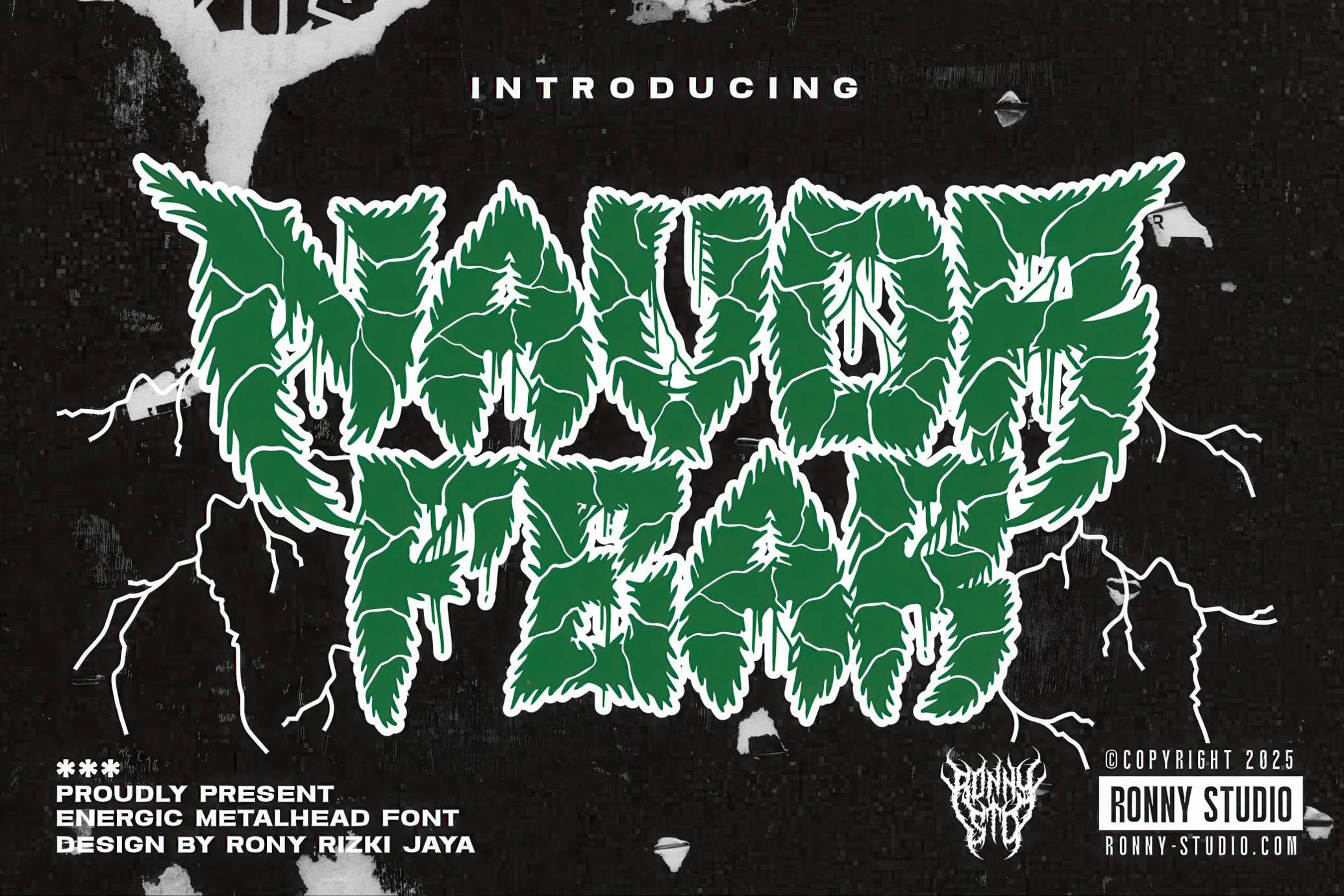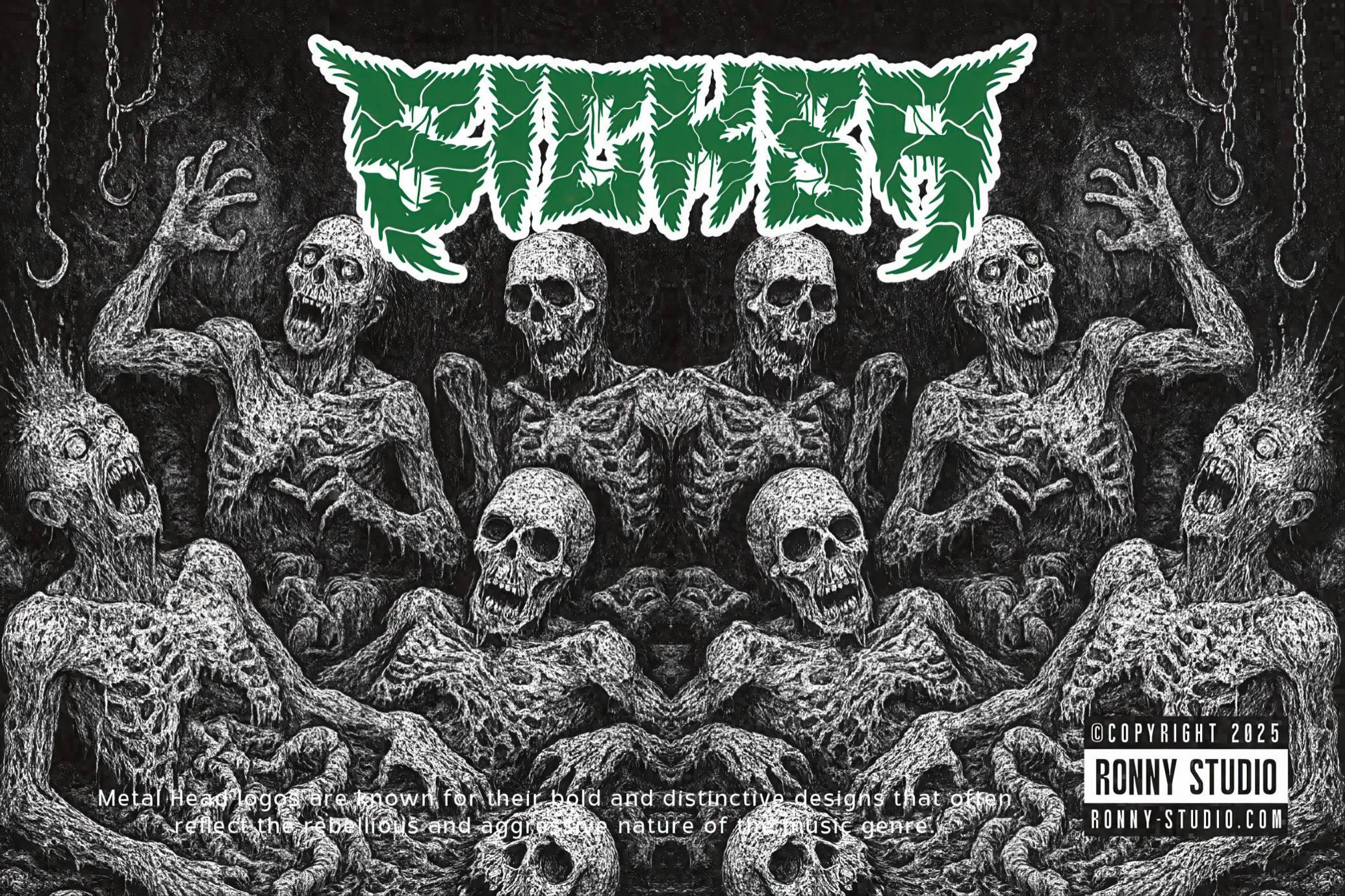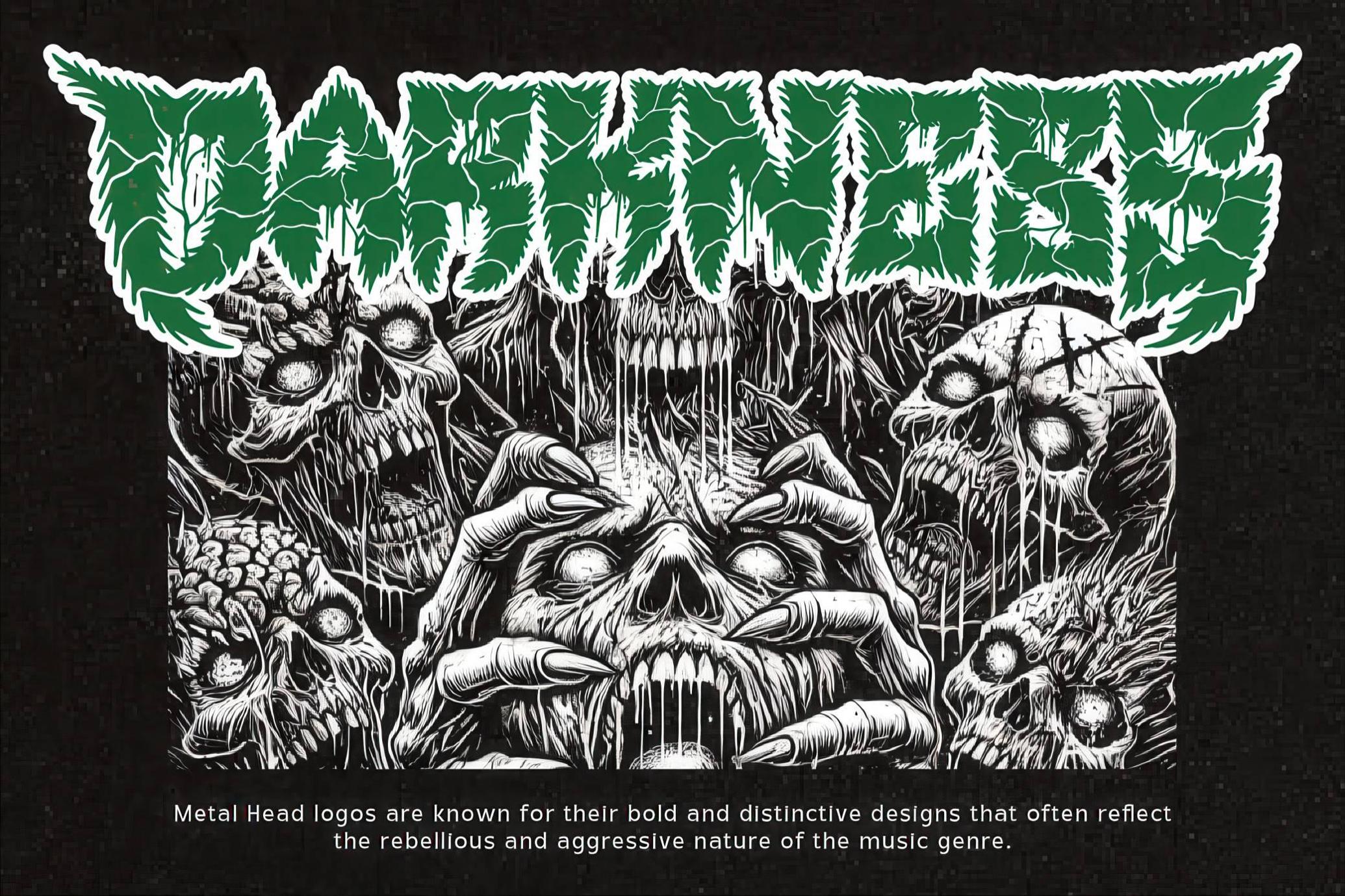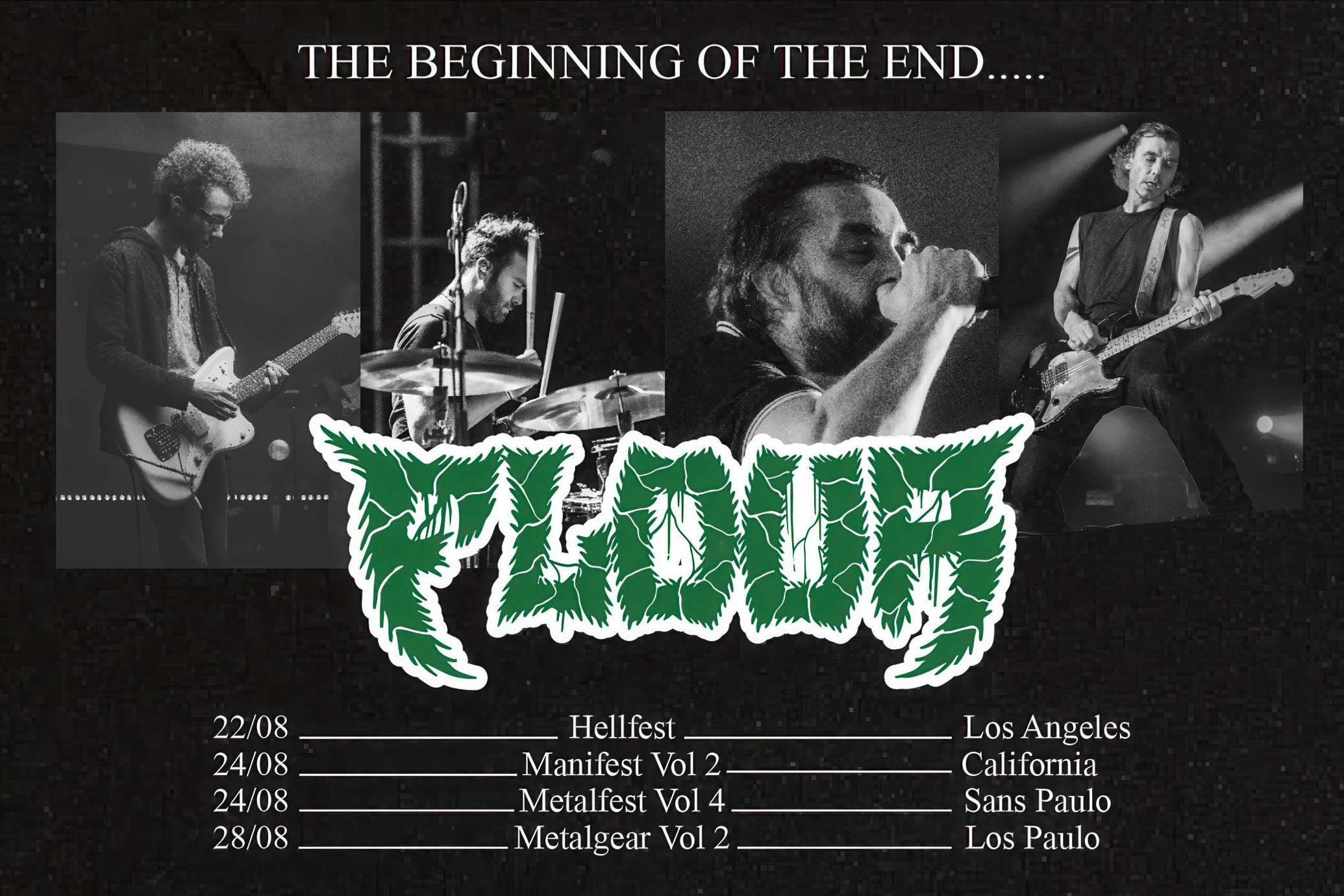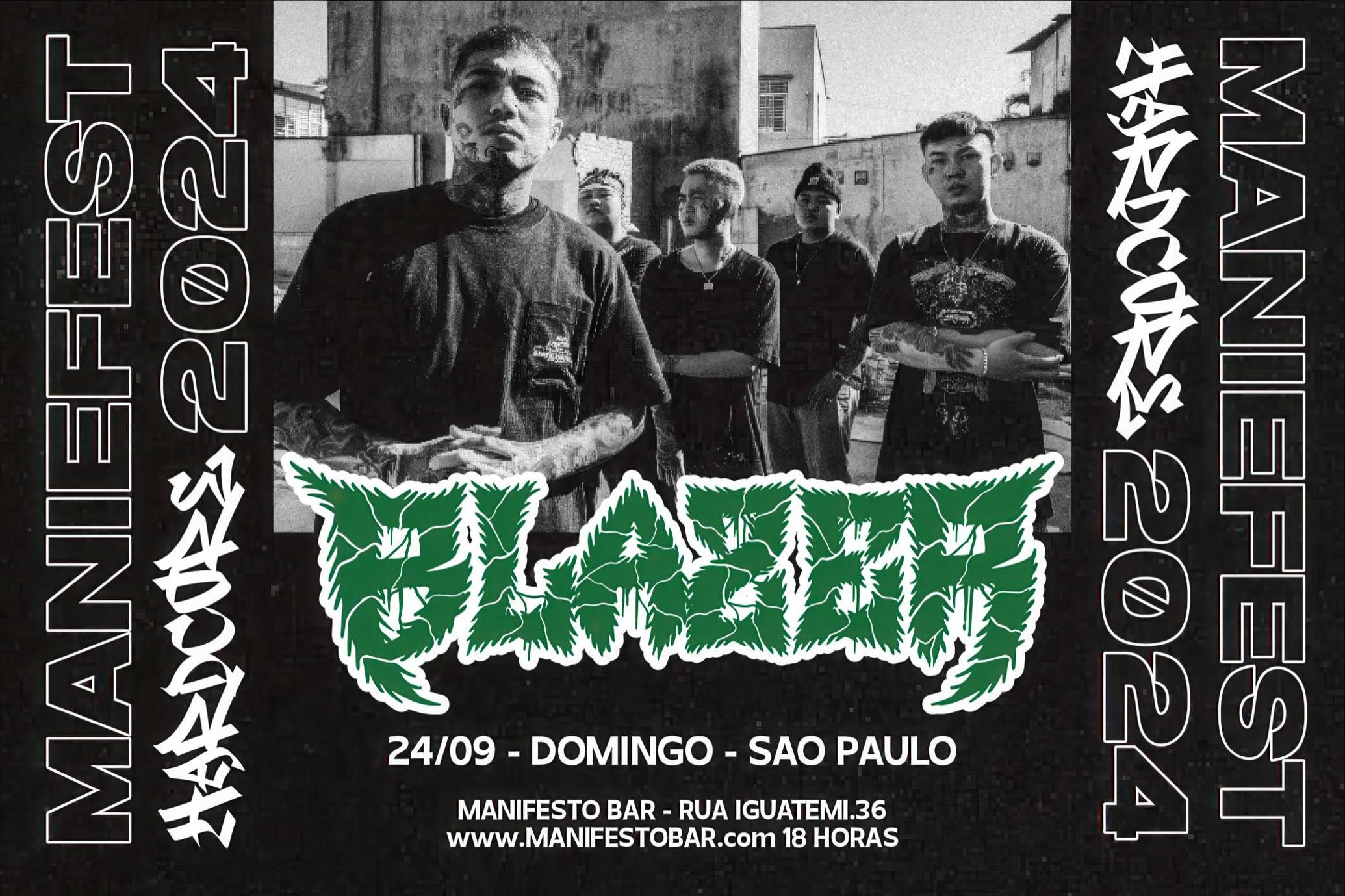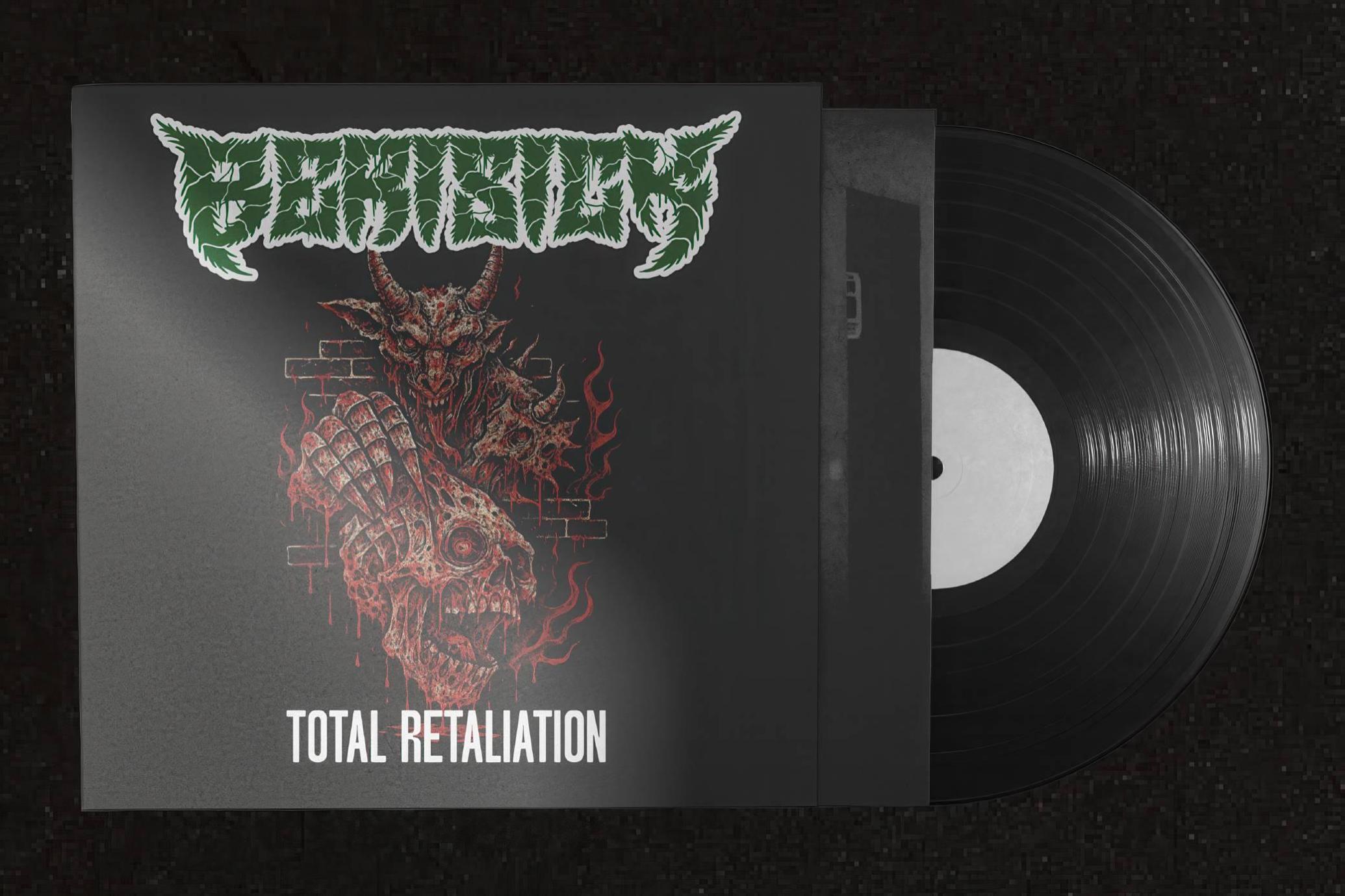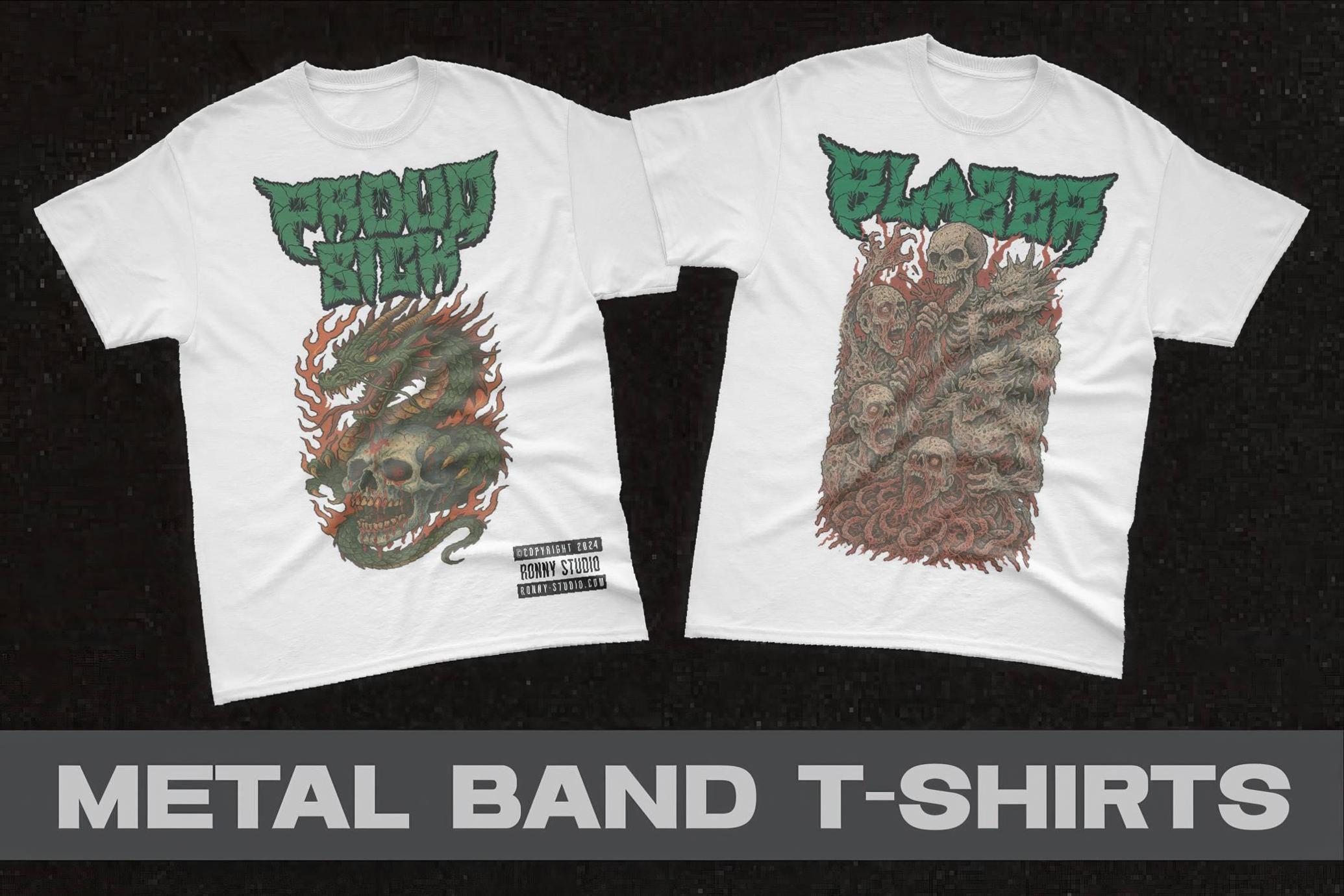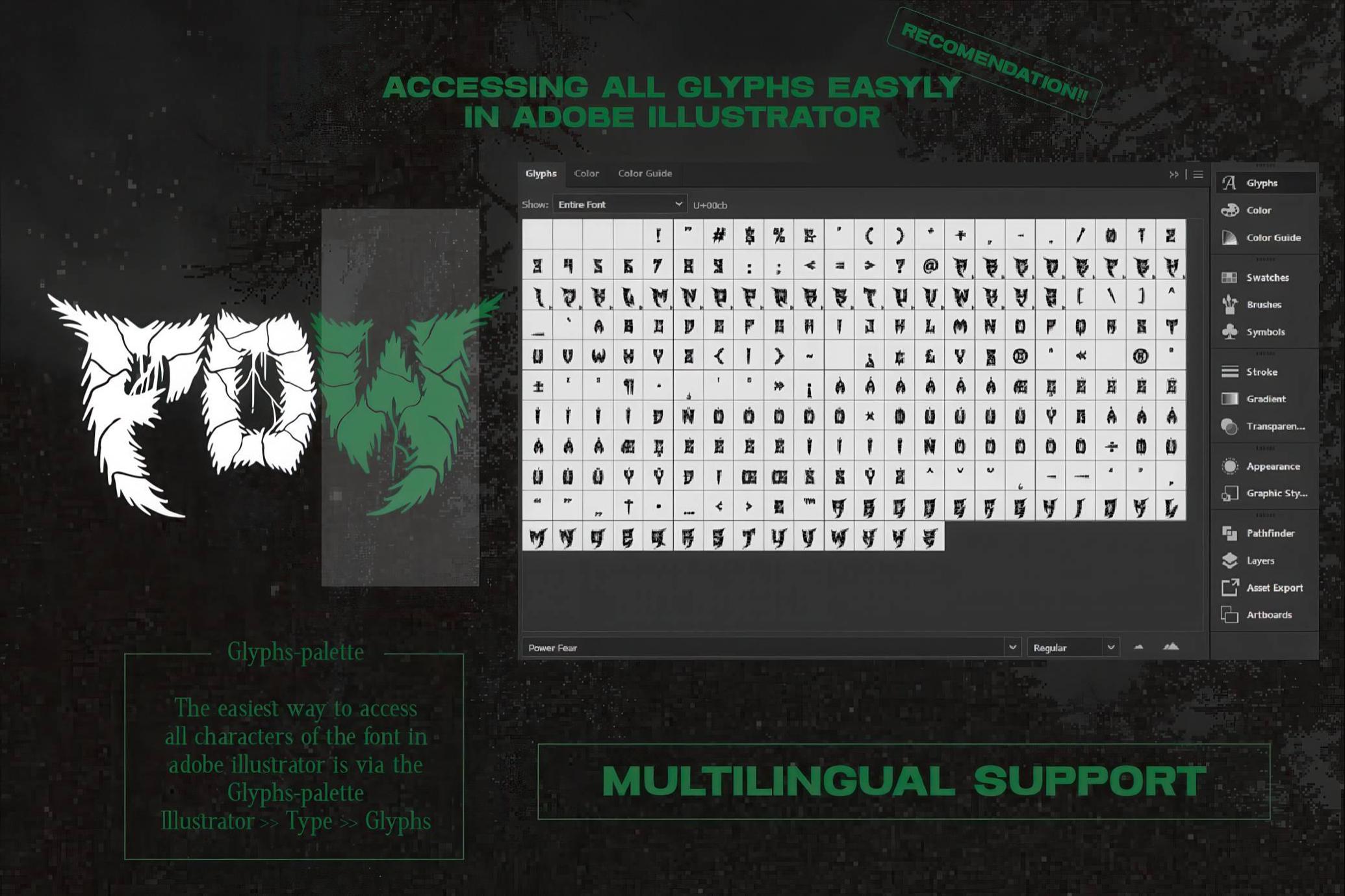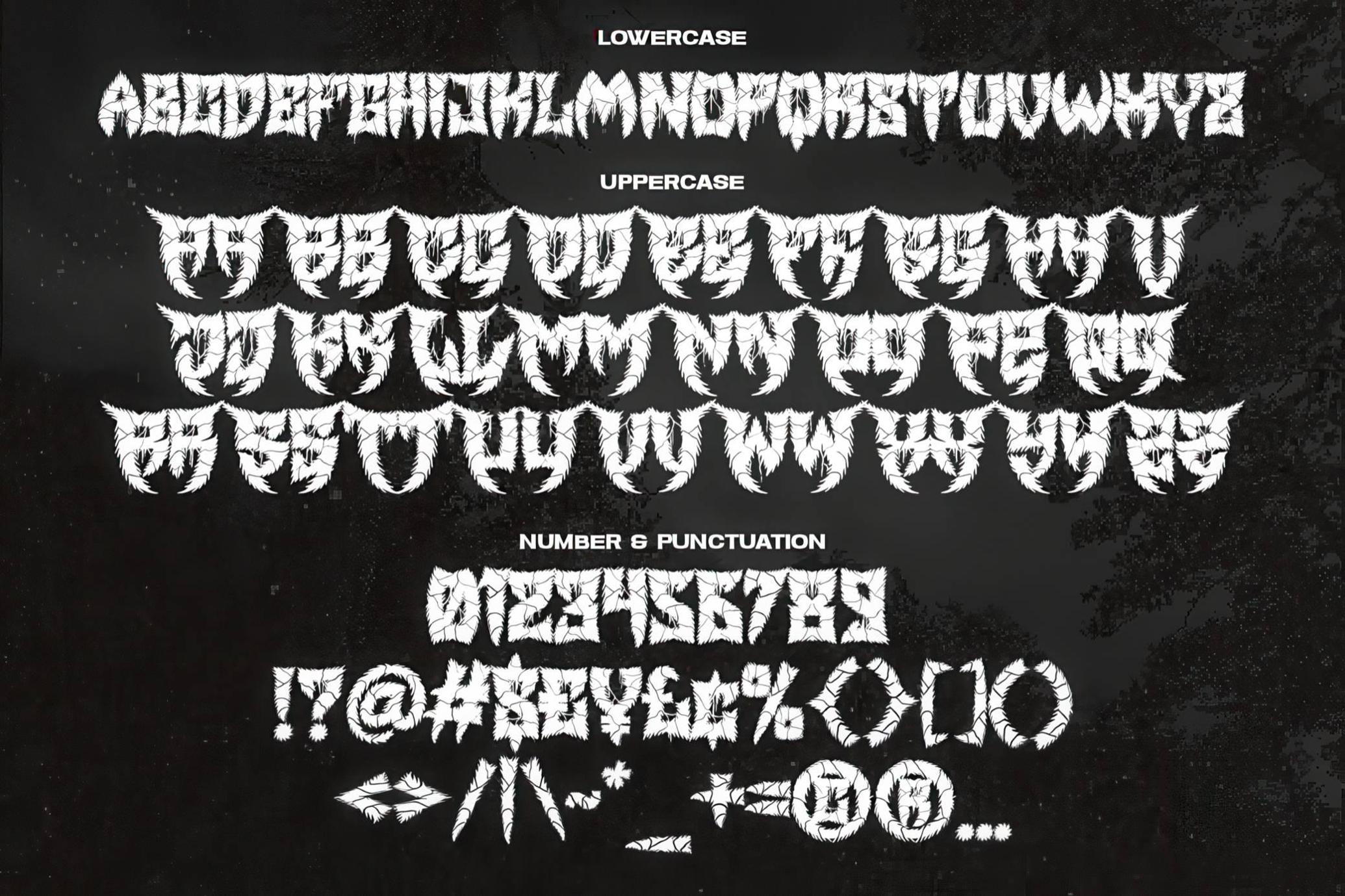
Navor Fear — Energic Metalhead
Navor Fear
Imagine letterforms carved from twisted vines, dipped in venom, and left to dry in a haunted forest. Navor Fear leans into that visual, each glyph feels feral and overgrown like it’s barely holding itself together. The set of glyphs includes uppercase, lowercase, punctuation, alternates, and multilingual support. Use it where readability is a bonus and attitude is everything: album covers, extreme metal logos, punk zines, blackened merch drops, horror titles, tattoo designs, DIY posters, and underground event flyers.